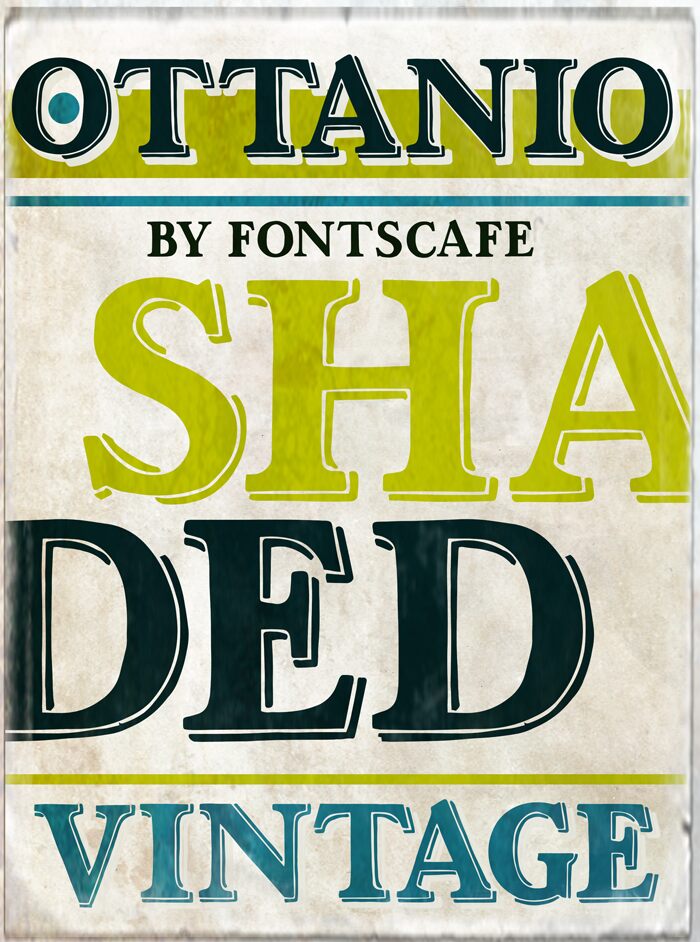
Ottanio, a bold and captivating serif font, exudes a tantalizing blend of tradition and a touch of vintage flair. Crafted with precision, its unique irregularities and commanding presence command attention, making it a versatile choice for design projects that require a strong, memorable aesthetic.
From classic editorial layouts to modern branding endeavors, Ottanio's striking characteristics lend an air of authority and timelessness, seamlessly bridging the gap between the old and the new.
Its adaptability ensures that this font remains a perpetual solution, a reliable companion in any design toolkit where a powerful, yet refined, typographic statement is desired.
As the most classic and traditional style pack of the Fonts Caf, the "Ottanio Shaded" font https://fontscafe.com/font/ottanio-shaded (one of the 3 in the whole "Ottanio Pack" https://fontscafe.com/fonts-packages/ottanio-pack ) take a place of honor in the list of the Fonts Caf handmade Vintage style fonts.